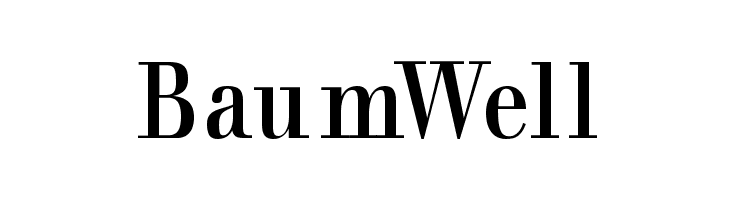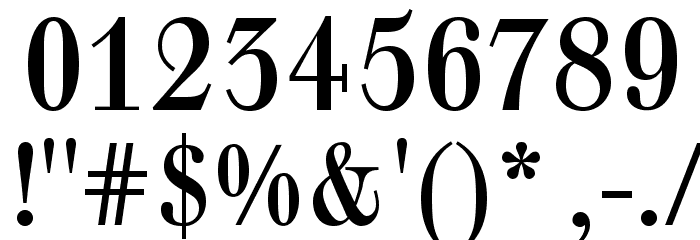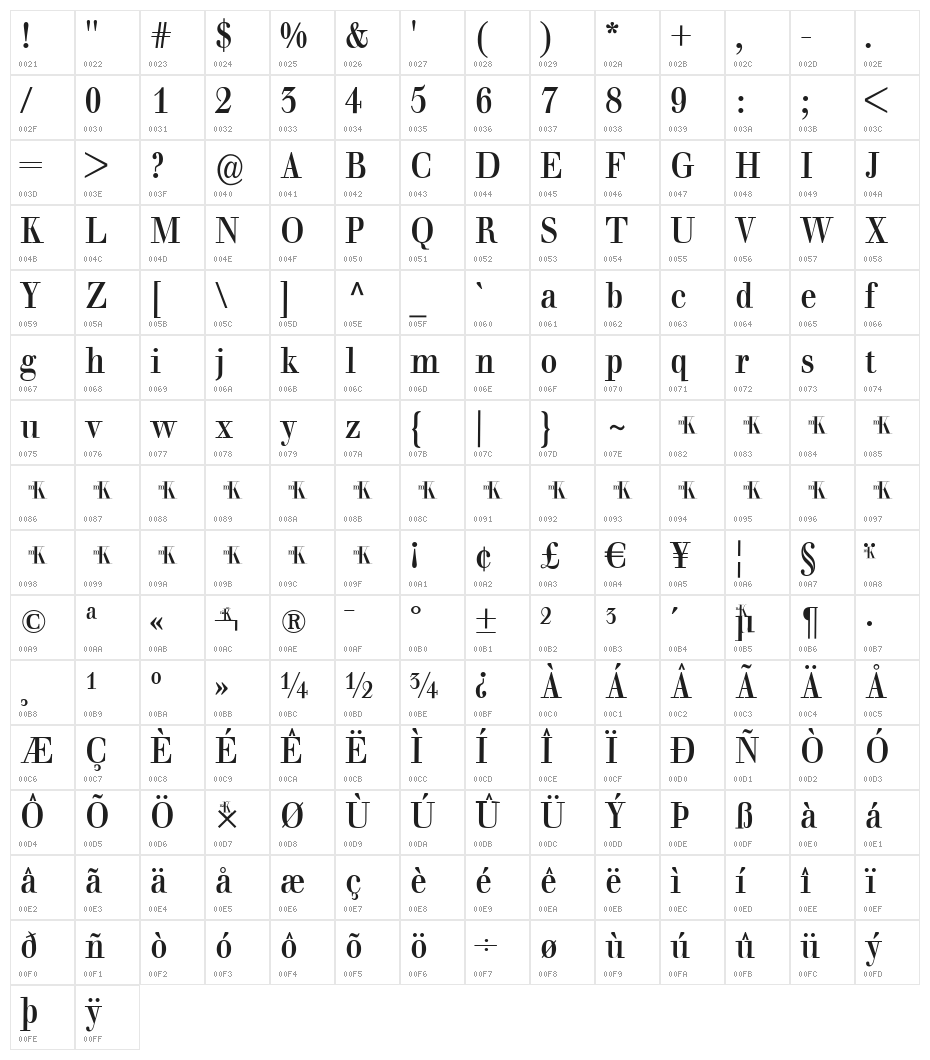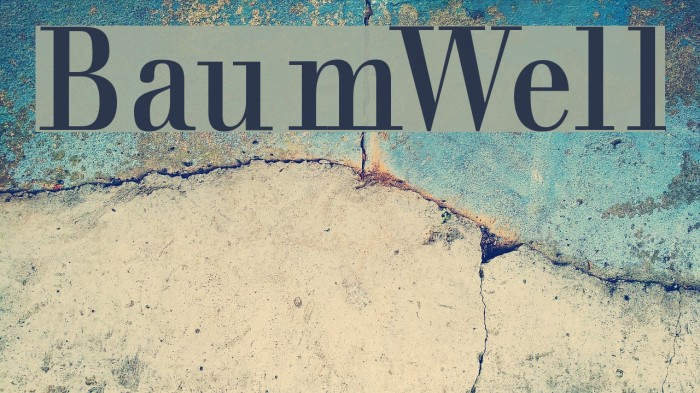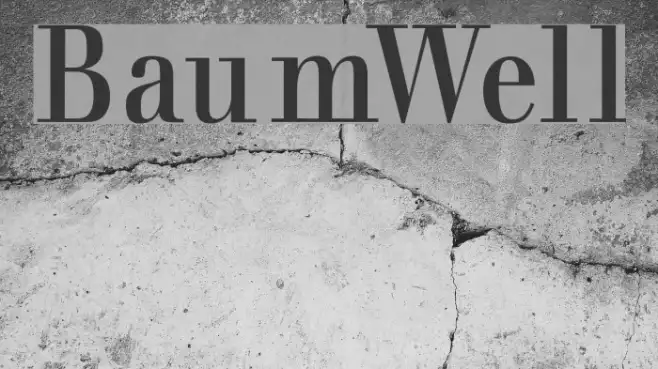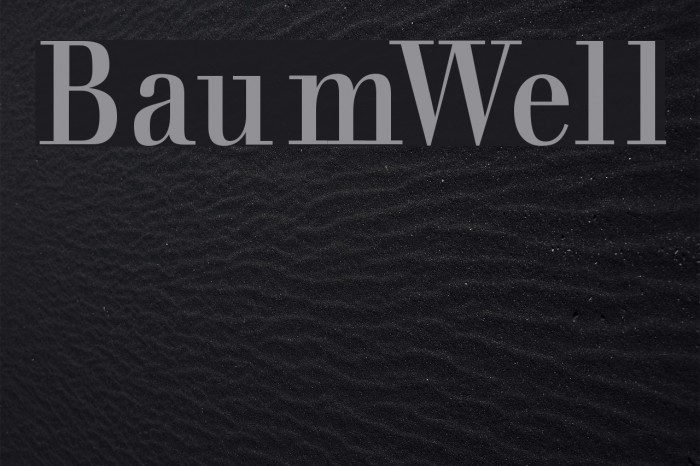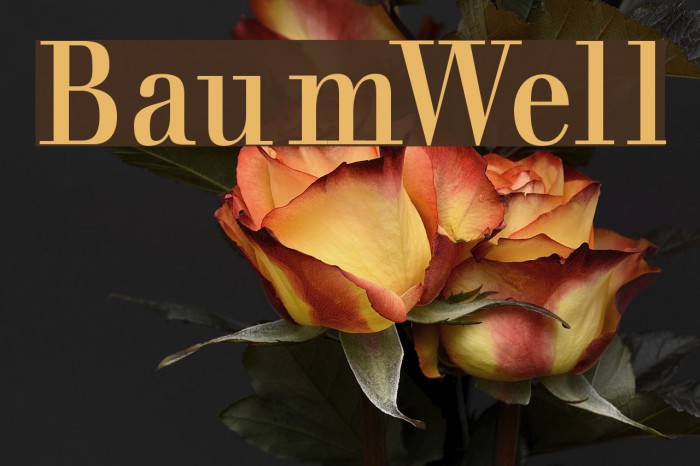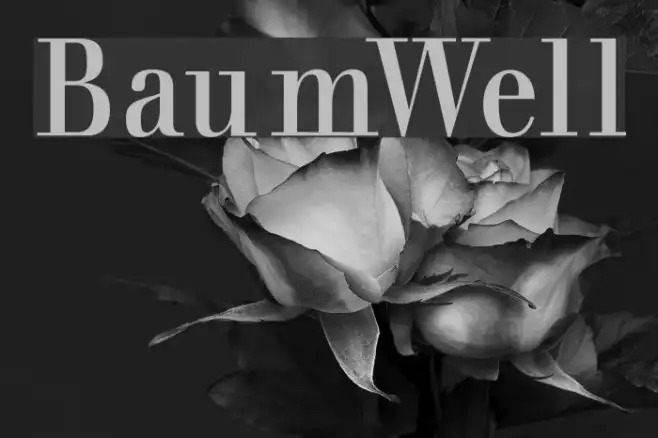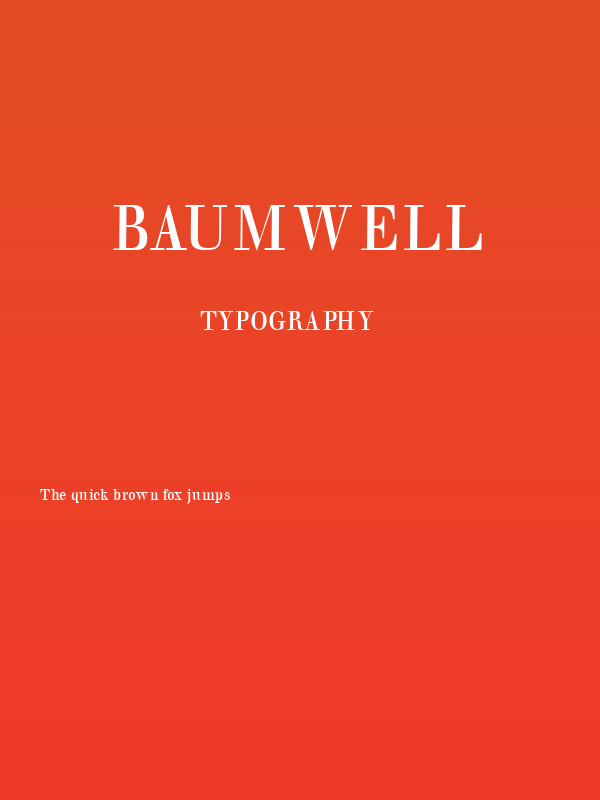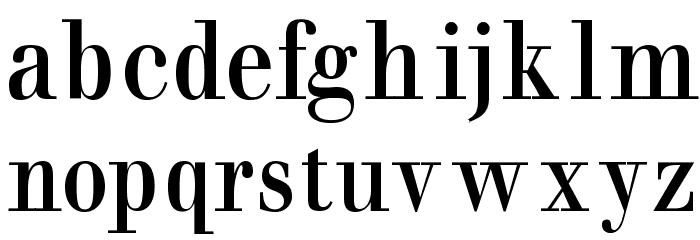
BaumWell Font
BaumWell Description
This font features a classic serif style with a modern twist, characterized by its elegant and refined appearance. The uppercase letters are tall and commanding, while the lowercase letters maintain a balanced and harmonious look. The numerals are clear and distinct, making them easily readable. Special characters are well-integrated, adding to the font's versatility. The strokes are consistent, with a medium contrast that enhances readability without sacrificing style. This font is suitable for both digital and print media, offering a timeless appeal that works well in various contexts.
| Proposed Projects | Ideal for editorial design, branding, book covers, and formal invitations. |